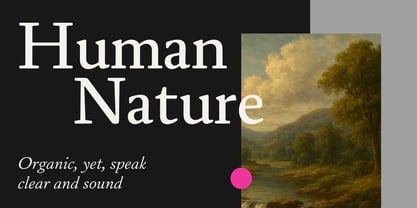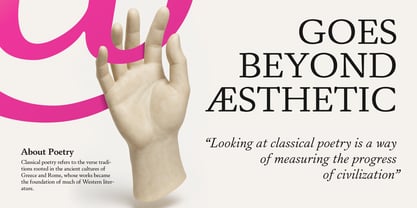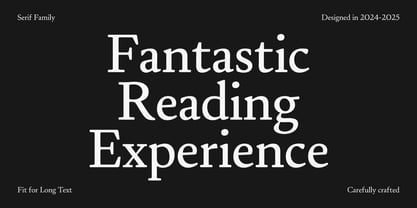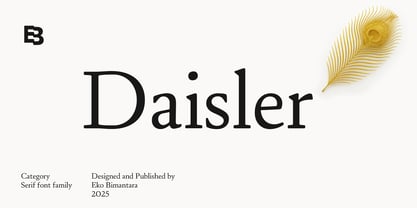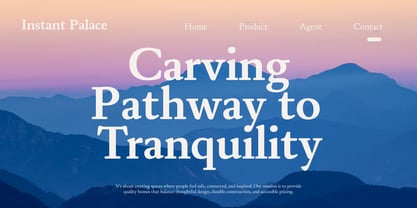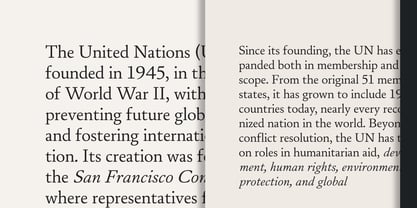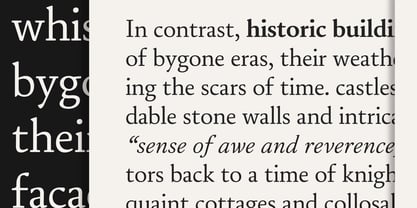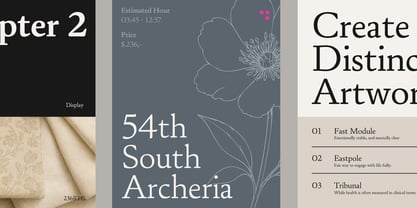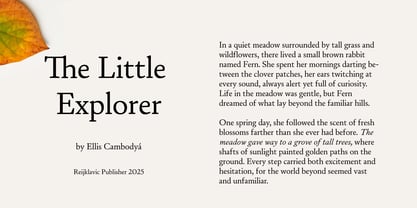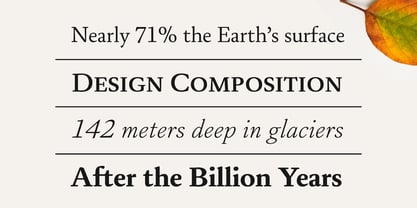
Daisler
by Eko Bimantara
The Daisler Font Family was designed by Eko Bimantara and published by Eko Bimantara. Daisler contains 14 styles and family package options. More about this family
Daisler is a serif typeface crafted specifically for long-form reading. Designed with a strong emphasis on legibility and readability, it draws inspiration from humanist serif traditions found in classics like Garamond and Caslon. While it carries their warmth and calligraphic influence, Daisler introduces a more neutral and rational construction, resulting in a balanced, contemporary text face. The family includes six weights, from Light to ExtraBold, each accompanied by a carefully designed italic counterpart. This range offers flexible typographic expression across editorial, digital, and print applications. Daisler is ideally suited for book layouts, web text, and any reading-focused environment where comfort and clarity are essential.
About Eko Bimantara
Eko Bimantara is a type designer from Indonesia. Always has an intention to creating fonts that not only look great but also perform across a wide range of mediums and also across wide range of theme. The goal is to give designers the tools to make their projects that speaks a lot with various expression. Eko Bimantara’s fonts are featured in everything from corporate identities to street art posters, and have numerous ideas and concept ready to expand for fresh fonts for years further.